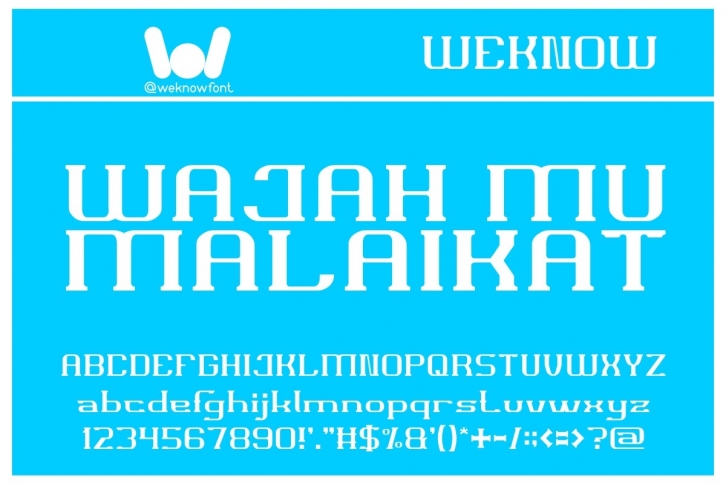
Wajah Mu Malaikat is a fancy and cool display font. It is suitable for logos, headline font, in corporate identity, brand identity, apparel industry, poster, music, movie, game, magazine, book, comic, cartoon, YouTube, Instagram, website, or any of your creative design projects.